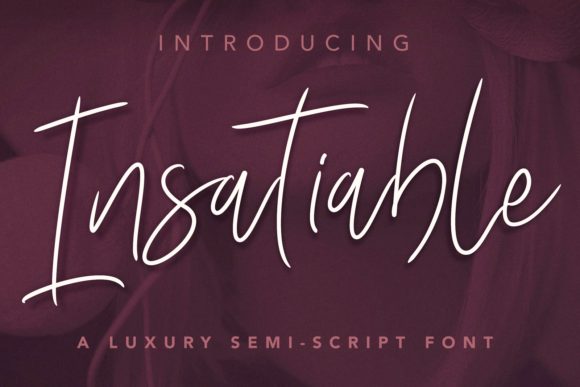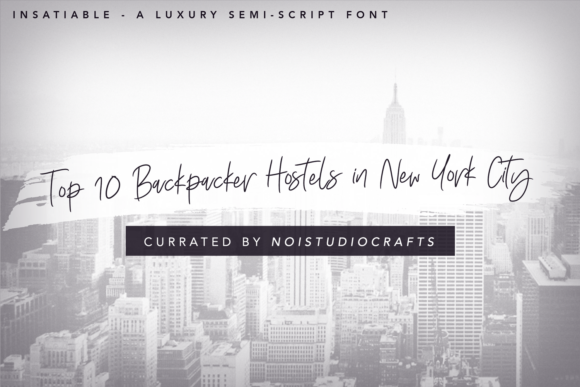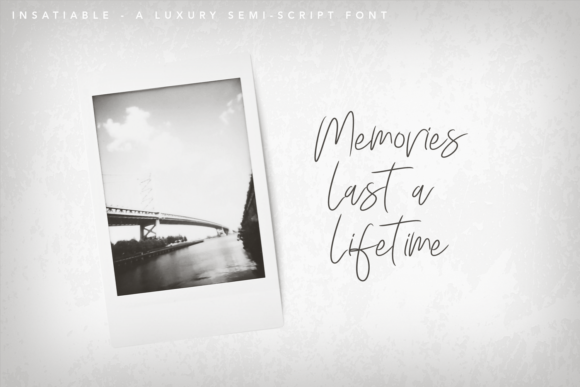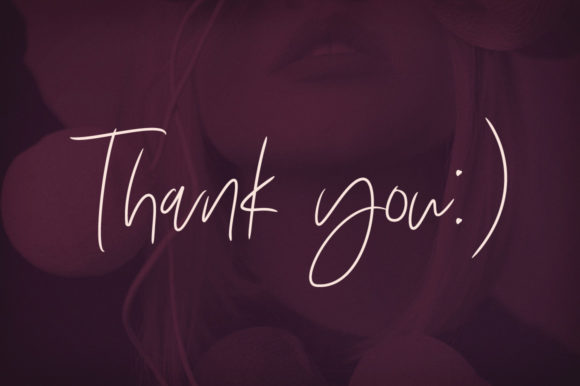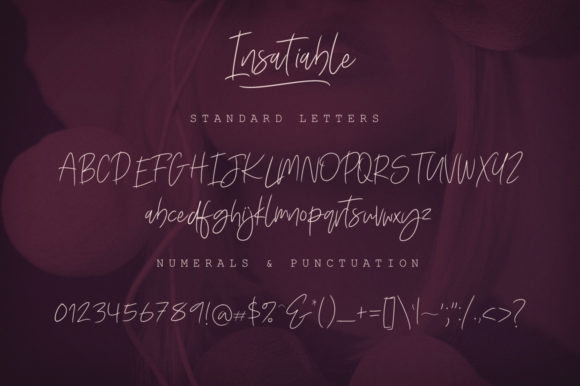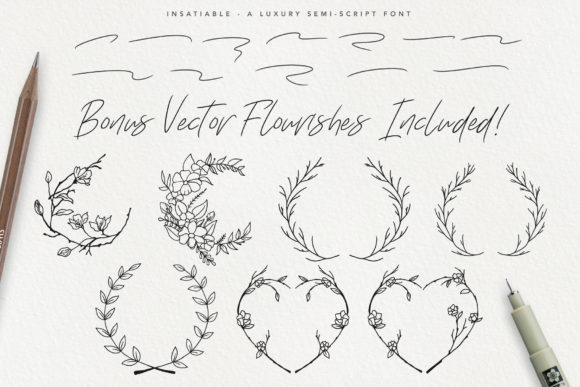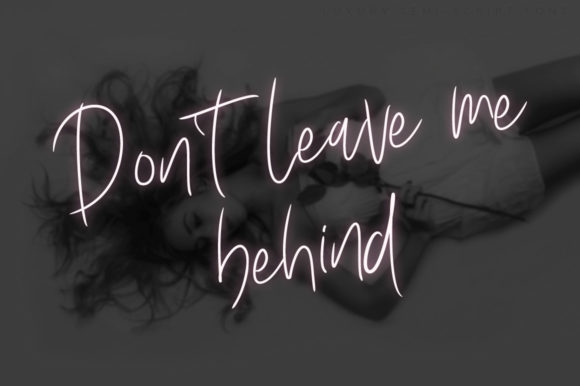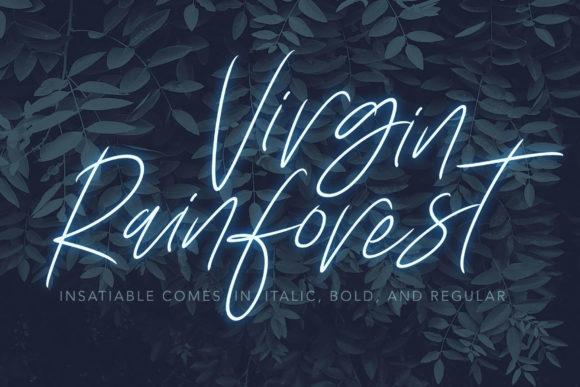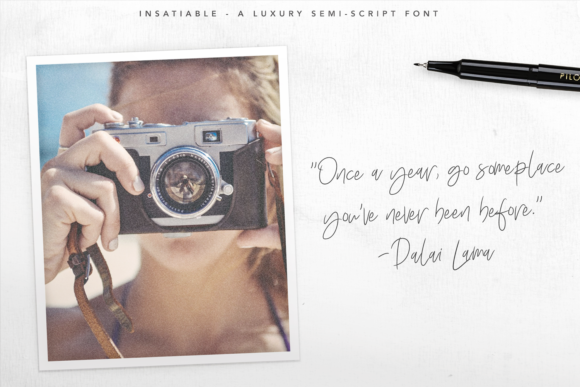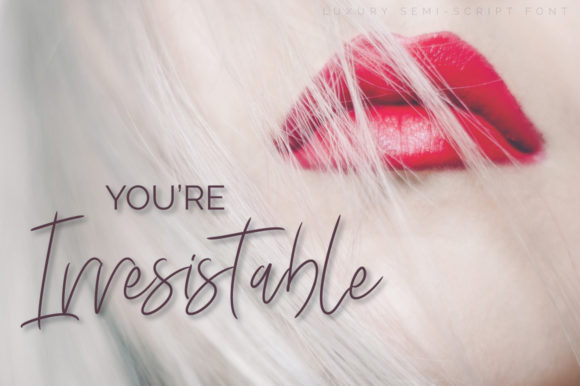
Insatiable Script Font
Presenting The Insatiable, a luxurious semi-script font that exudes elegance and sophistication. This font goes beyond the ordinary, offering three distinctive styles that cater to diverse design preferences. As an added bonus, The Insatiable includes handmade wreaths and flowers, enhancing your creative toolkit with exquisite decorative elements.
The Insatiable font, with its semi-script design, brings a touch of opulence to your projects. Its versatility shines through in the three available styles, providing flexibility for various design contexts. Whether you’re working on branding, invitations, editorial projects, or any creative endeavor that requires a luxurious aesthetic, The Insatiable rises to the occasion.
The three styles within The Insatiable offer a range of options to suit different moods and design requirements. Each style maintains a sense of refinement and opulence, contributing to a cohesive and upscale visual identity for your projects.
The inclusion of handmade wreaths and flowers as a bonus enhances the font’s versatility. These decorative elements complement The Insatiable perfectly, allowing you to add a bespoke and personalized touch to your designs. Whether you’re creating logos, invitations, or other visually impactful materials, these bonus elements provide an extra layer of sophistication.
In conclusion, The Insatiable is not just a font; it’s a luxurious design package that caters to discerning tastes. With its three styles and the bonus of handmade wreaths and flowers, this font elevates your projects to a new level of refinement. Embrace the opulence of The Insatiable and let it bring a touch of luxury to your branding, invitations, and creative designs.